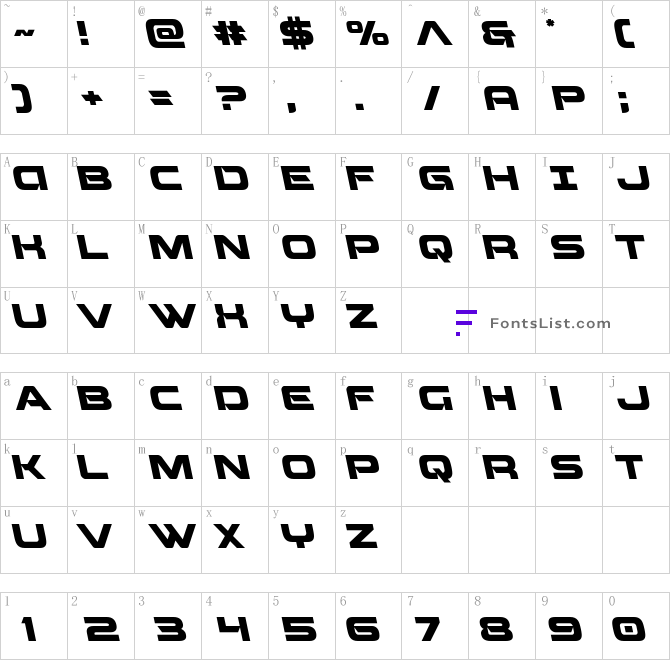
- Font Name:Beam Weapon Leftalic
Beam-Weapon-Leftalic.ttf is a very beautiful artistic font, Beam-Weapon-Leftalic.ttf is widely used in the design and printing of various books and pictures,Beam-Weapon-Leftalic.ttf has a strong visual impact,Beam-Weapon-Leftalic.ttf is a commonly used font in newspapers, magazines and books, and is used in posters, e-commerce Poster design, store design, logo design, font design and other fields.Beam-Weapon-Leftalic.